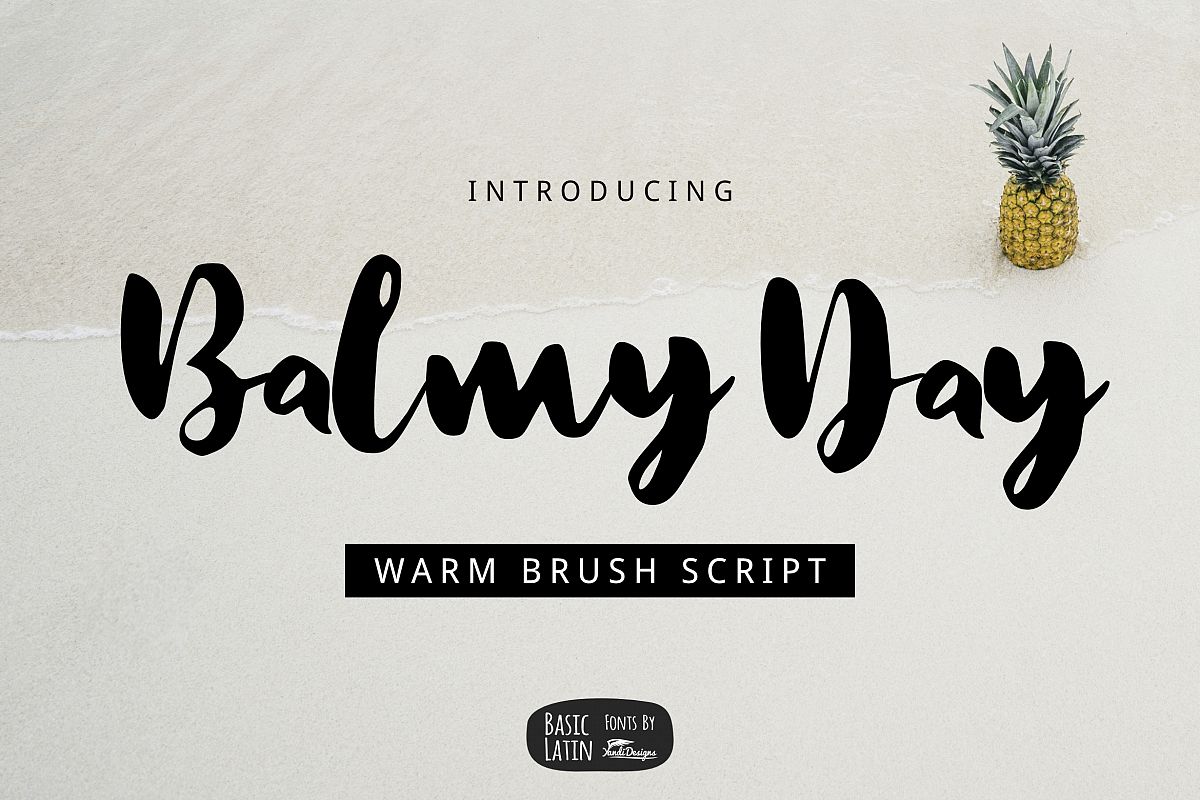
Balmy Day Brush
Balmy Day Font
Simple fresh multipurpose brush font , suitable for many project children book, quotes, logo , heading , title etc.
Basic Latin (Standard English character , number, symbol)